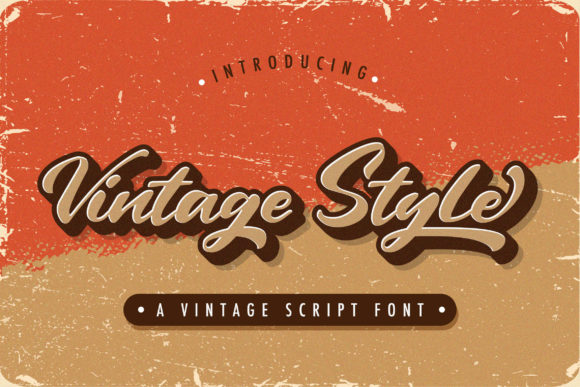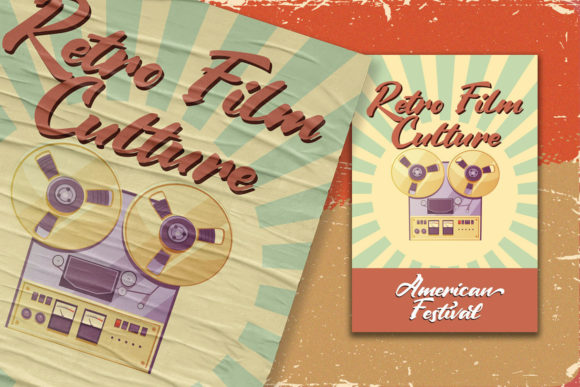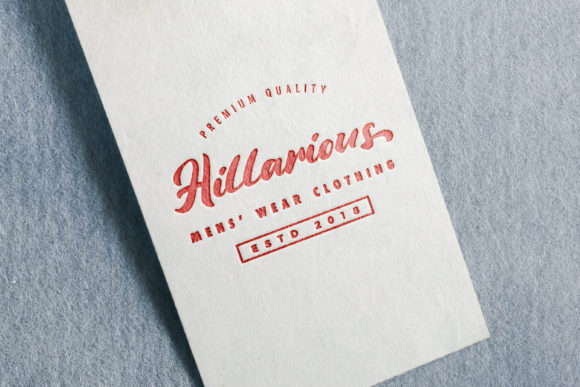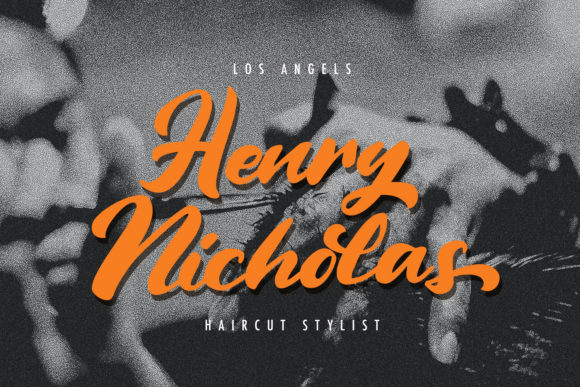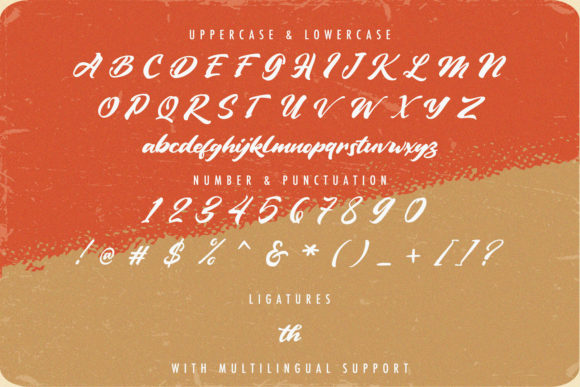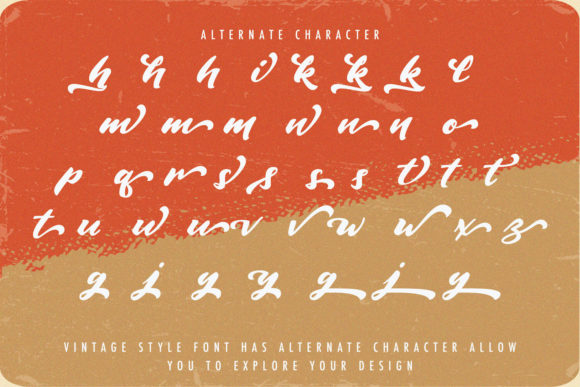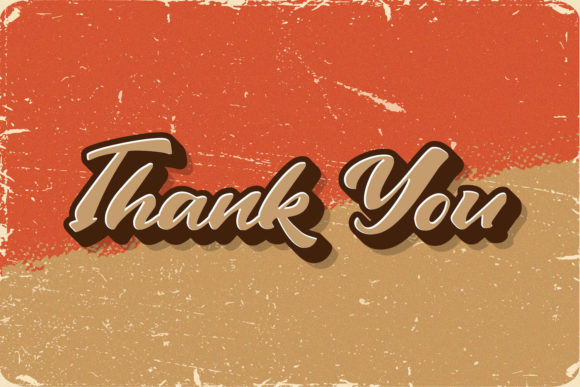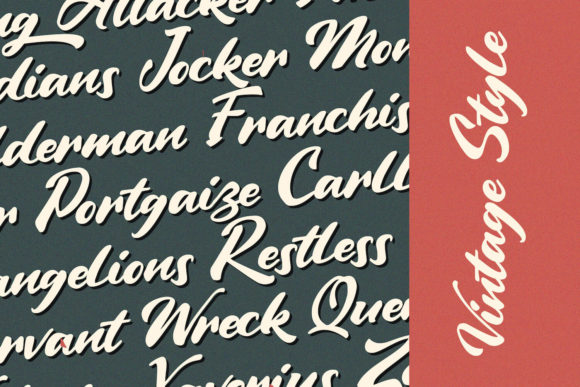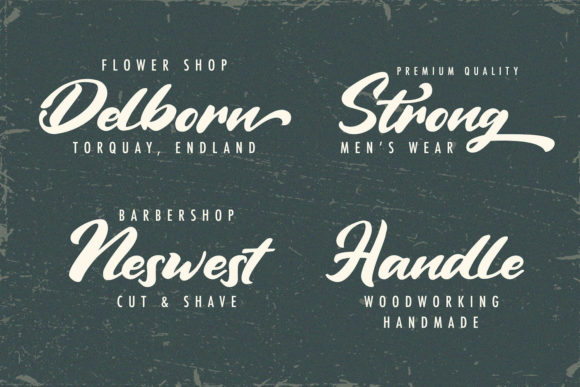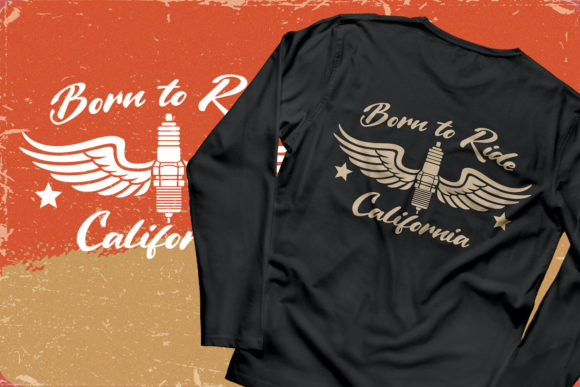
Vintage Style Font
“Vintage Style” is a distinctive and modern handwritten font that adds a touch of nostalgia and charm to any design project. With its unique and artistic letterforms, this font is perfect for adding a vintage and DIY aesthetic to your creations.
The “Vintage Style” font captures the essence of retro typography while incorporating a contemporary twist. Its handcrafted appearance gives it an authentic and organic feel, making it ideal for a wide range of design purposes. Whether you’re working on a DIY project, branding, logo design, invitations, or any other creative endeavor, “Vintage Style” will bring a unique and eye-catching element to your work.
This font’s versatility allows it to adapt to various design styles and themes. Whether you’re aiming for a rustic, bohemian, or vintage-inspired look, “Vintage Style” will effortlessly complement your vision. Its playful and imperfect strokes convey a sense of creativity and authenticity, adding character and visual interest to your designs.
Imagine using “Vintage Style” to create DIY project materials such as handmade signs, craft labels, or custom packaging. The font’s distinct style will give your projects a unique and personalized touch, making them stand out and capturing the attention of your audience. From home decor projects to handmade gifts, “Vintage Style” will bring a touch of nostalgia and craftsmanship to your creations.
In branding and logo design, “Vintage Style” can help you achieve a retro and distinctive look. Its hand-drawn elements and imperfect lines add a sense of authenticity and uniqueness, making your brand or logo instantly recognizable and memorable. Whether you’re targeting a vintage-loving audience or aiming for a nostalgic brand identity, this font will help you create a strong and visually appealing presence.
Additionally, “Vintage Style” can be used to create eye-catching invitations for various occasions. From weddings and parties to special events and gatherings, this font will add a charming and nostalgic touch to your invitations, setting the tone for a memorable and stylish celebration.
Overall, “Vintage Style” is a versatile and visually appealing handwritten font that brings a unique and modern twist to the vintage aesthetic. Its organic and imperfect charm will elevate your DIY projects, branding, logos, and invitations, allowing you to create designs that capture attention and evoke a sense of nostalgia and creativity. Let “Vintage Style” be your go-to font for bringing a touch of vintage-inspired beauty to your designs.